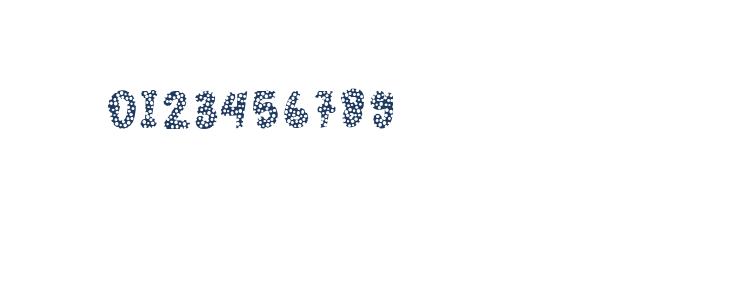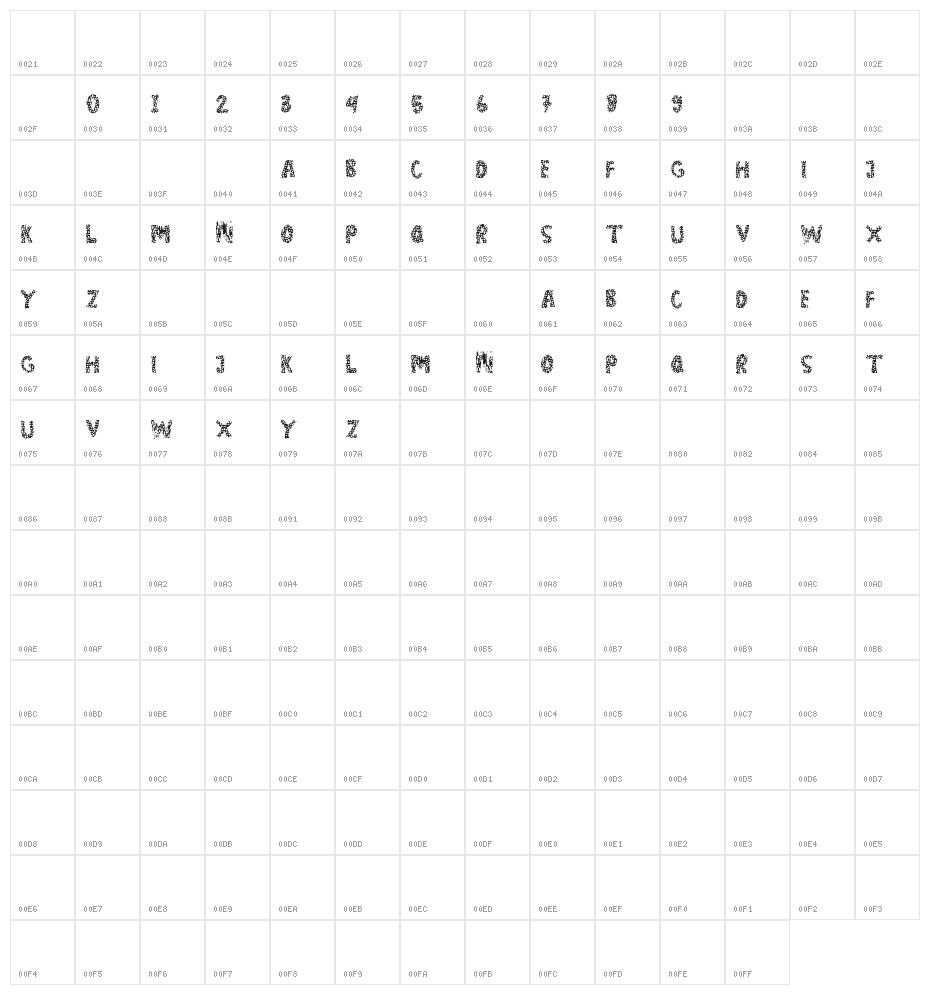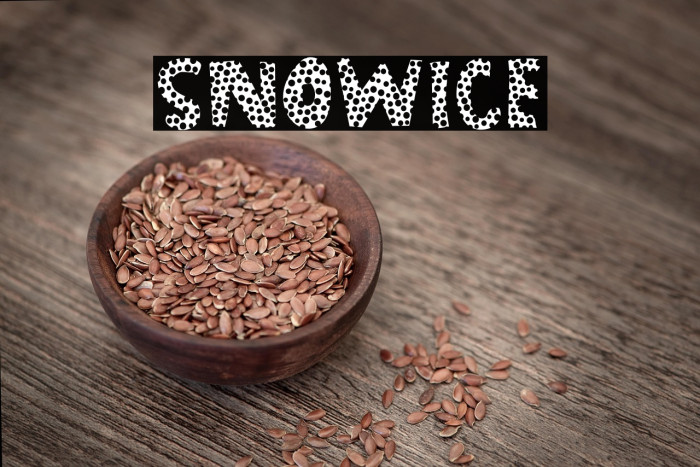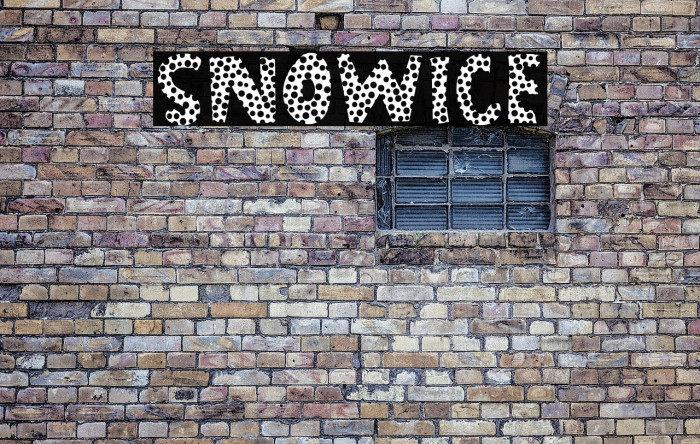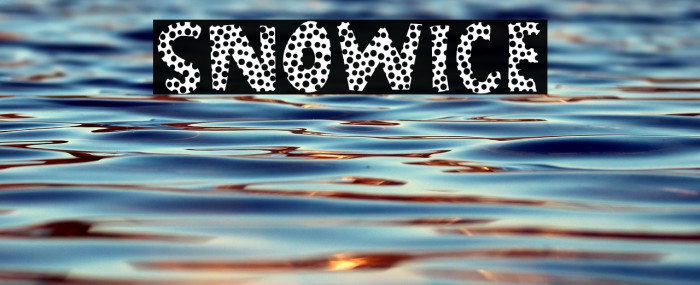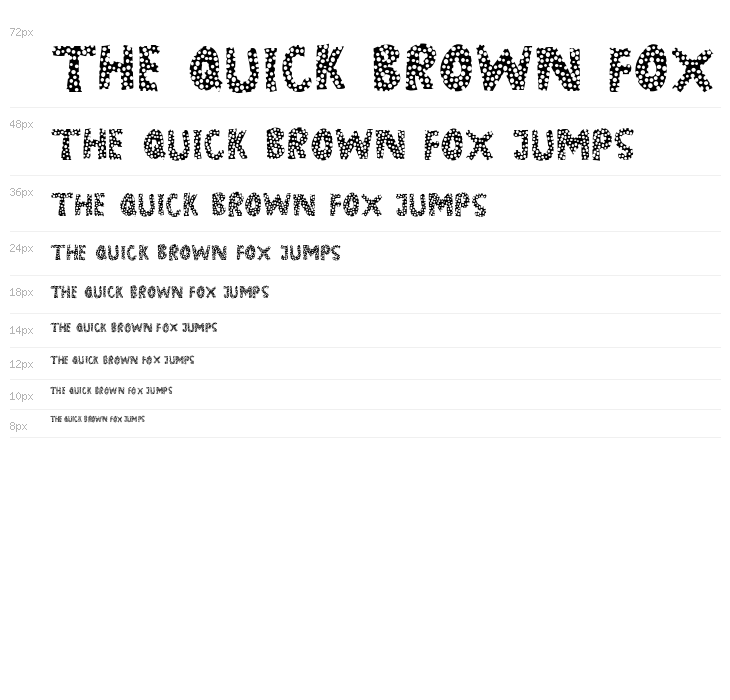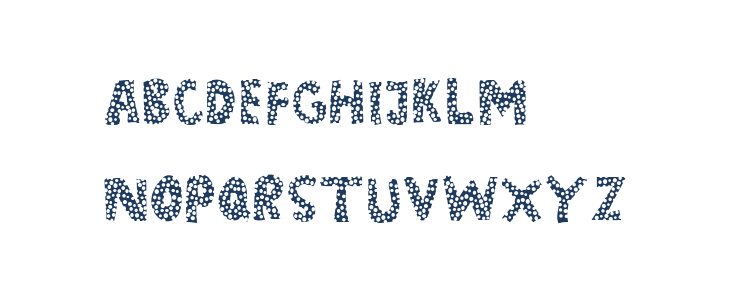
SNOWICE Font
SNOWICE Description
This playful and decorative font features a unique design with a snowflake pattern filling each character, creating a festive and whimsical appearance. The uppercase and lowercase letters maintain a consistent style, with rounded edges and a bold presence. The numbers and special characters are equally adorned with the snowflake motif, ensuring a cohesive look across all glyphs. This font is perfect for winter-themed projects, holiday cards, or any design that requires a touch of seasonal charm. Its distinct style makes it stand out, while the consistent pattern across characters ensures readability.
| Proposed Projects | Ideal for holiday cards, winter-themed posters, festive invitations, and seasonal branding. |